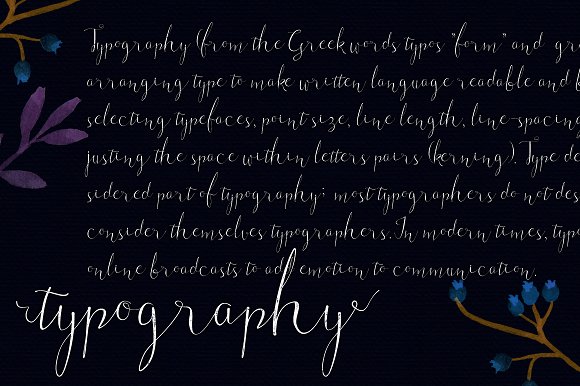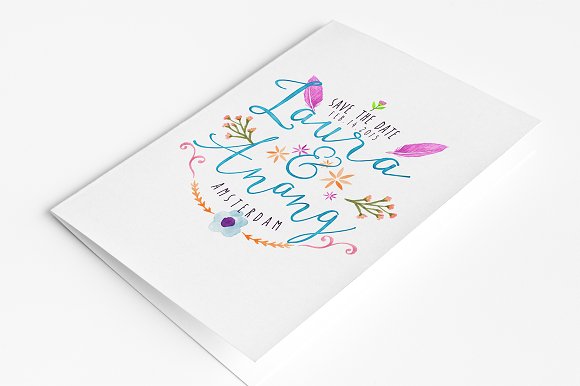
Kemayu Font
About Kemayu Font
Kemayu is a elegant, hand lettering typeface. It uses handwriting techniques and is perfect for those who like to create fun designs!